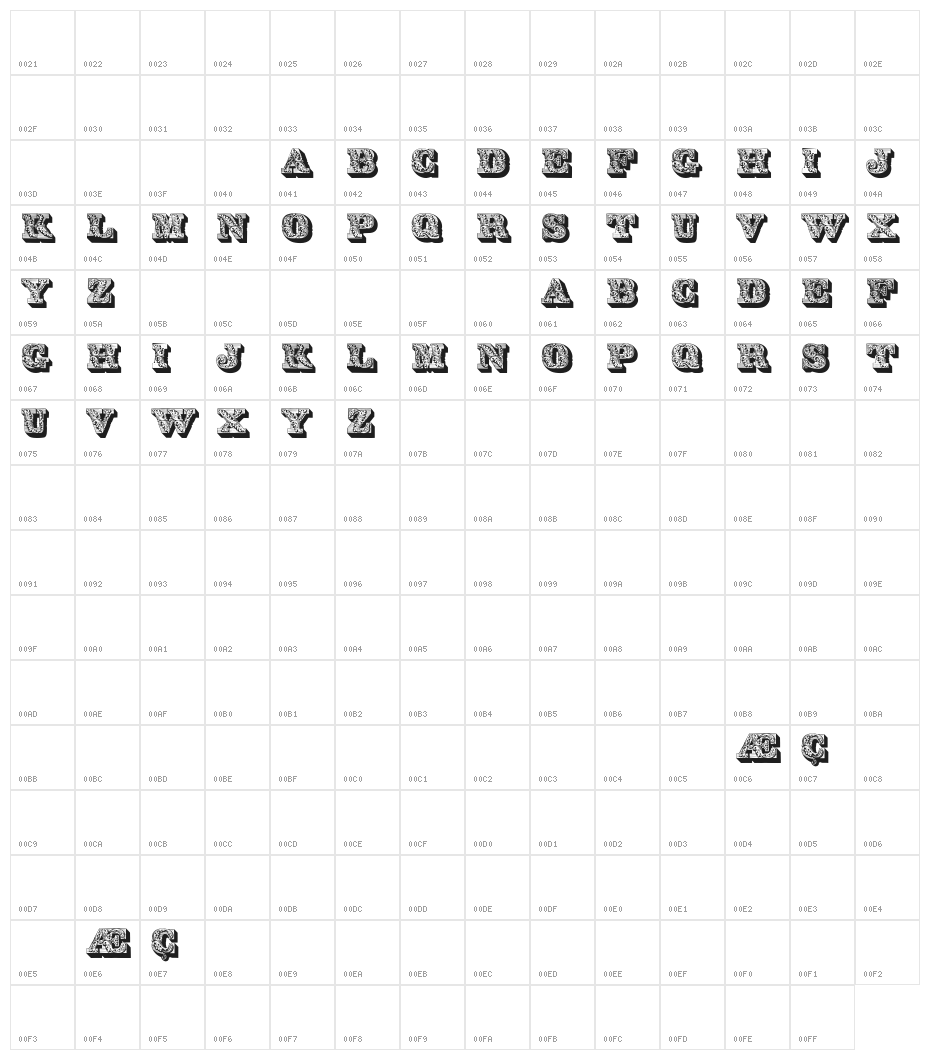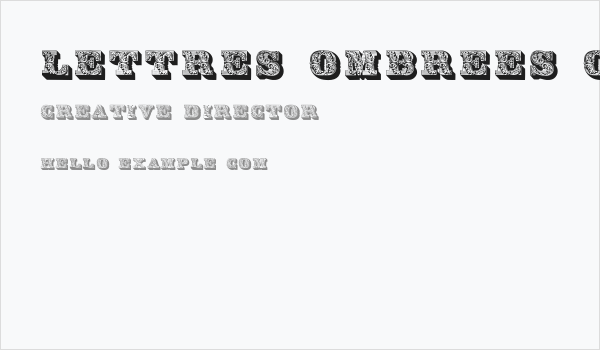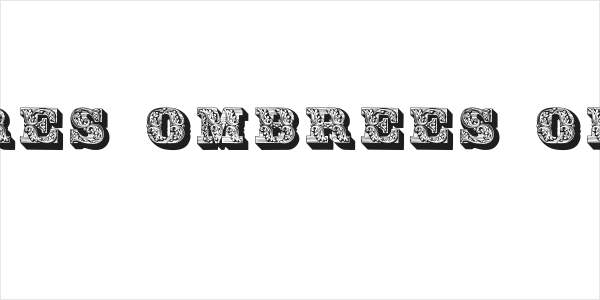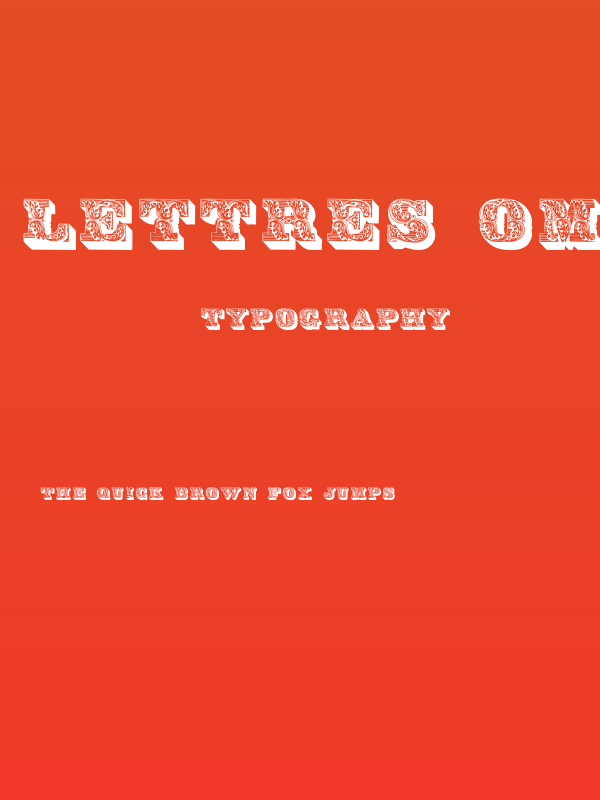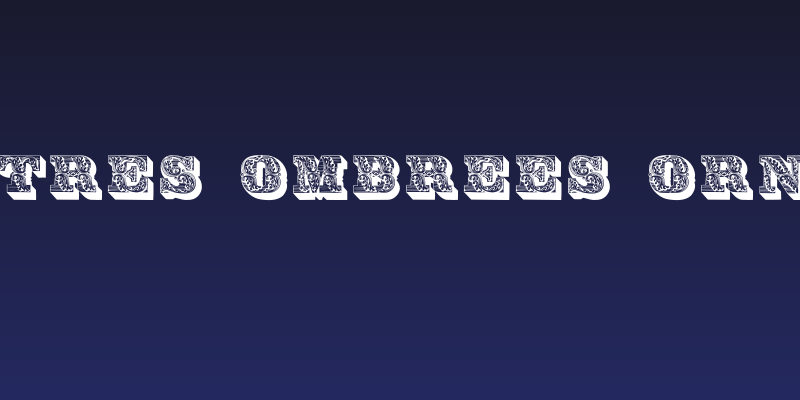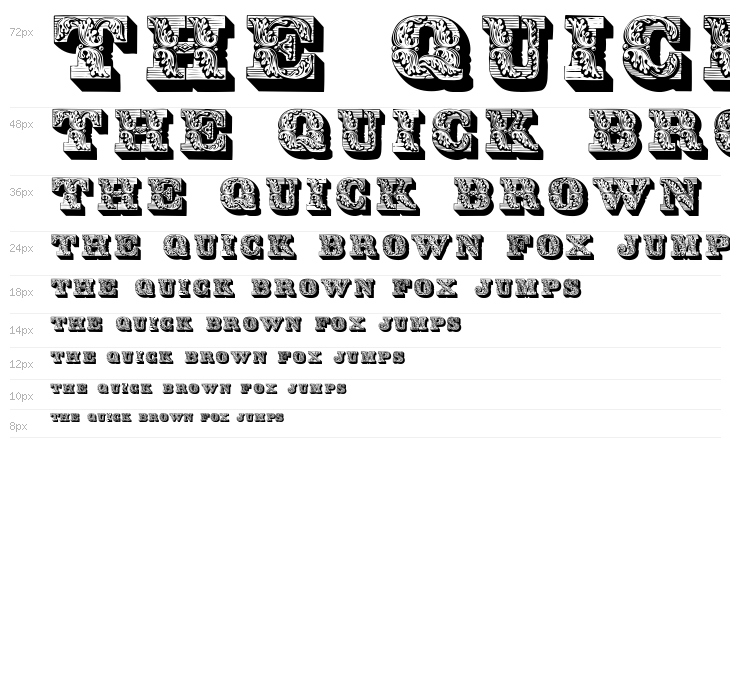
Lettres ombrees ornees Font
Lettres ombrees ornees Description
This font features ornate, shadowed letters with intricate detailing inside each character. The design is highly decorative, with each letter showcasing elaborate patterns that give it a vintage and artistic feel. The shadow effect adds depth and dimension, making the characters stand out prominently. This style is reminiscent of classic sign painting and traditional letterpress, offering a nostalgic and elegant aesthetic. The font's bold presence and detailed embellishments make it suitable for projects that require a touch of sophistication and historical charm.
| Proposed Projects | Ideal for vintage posters, wedding invitations, book covers, and branding that requires a classic touch. |